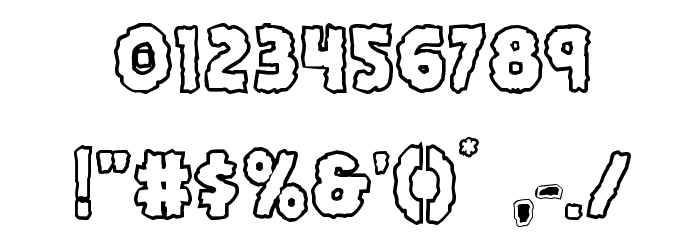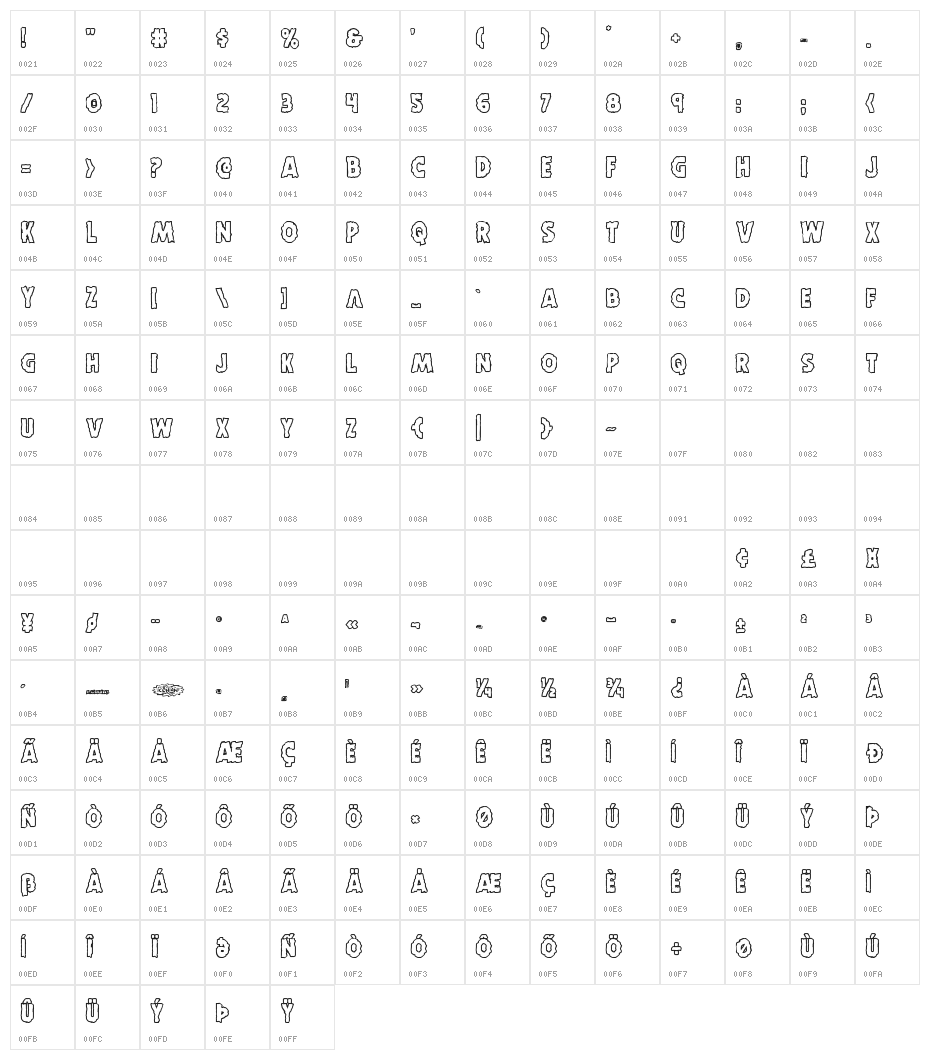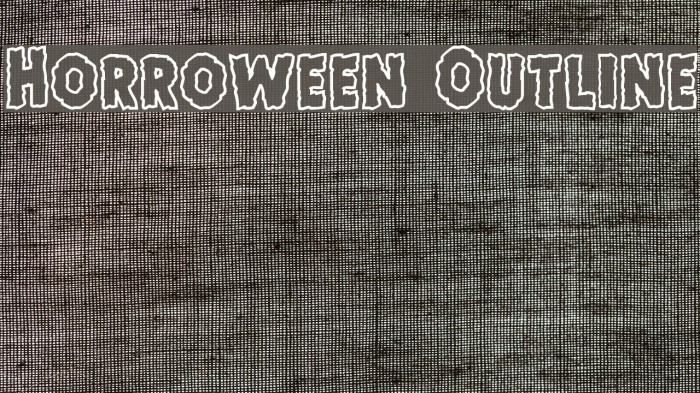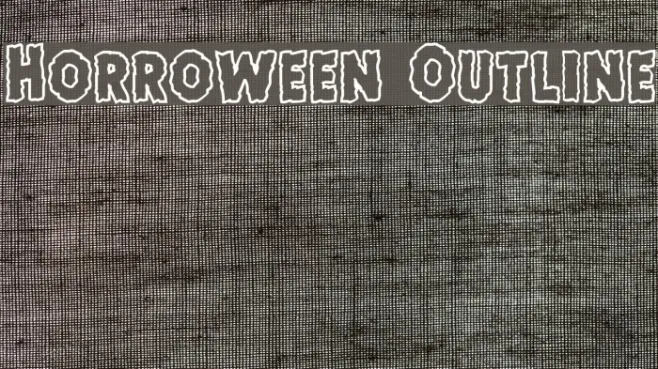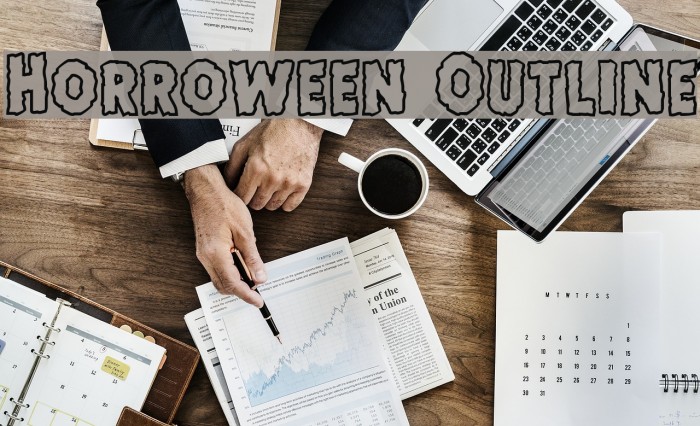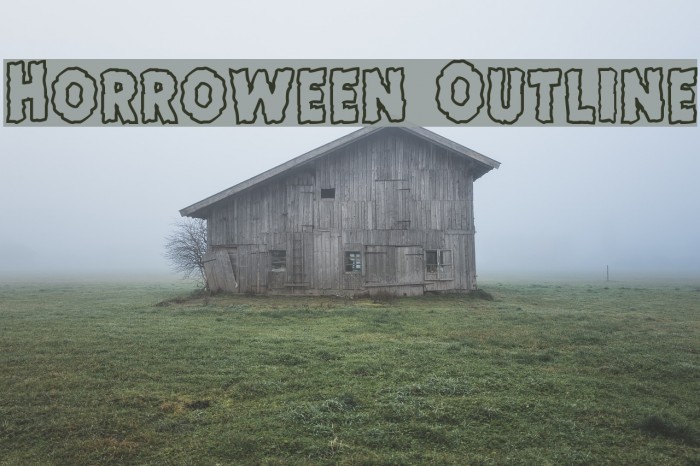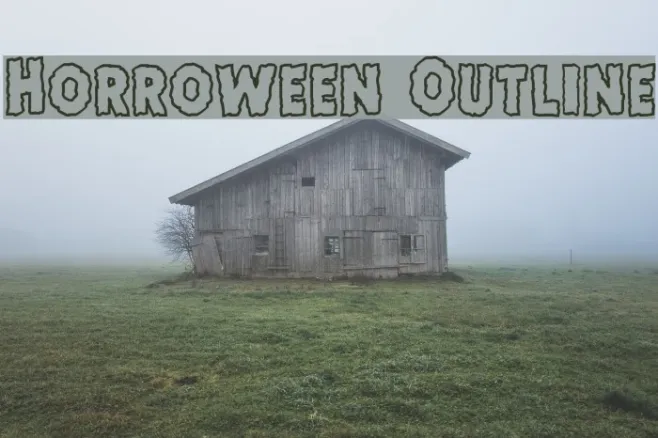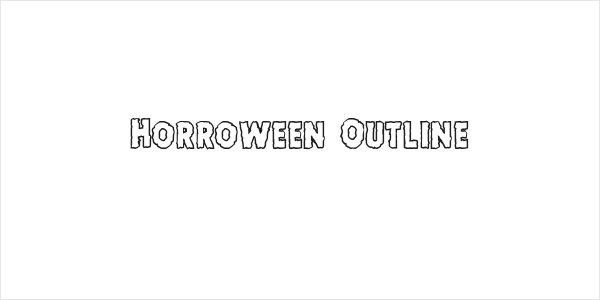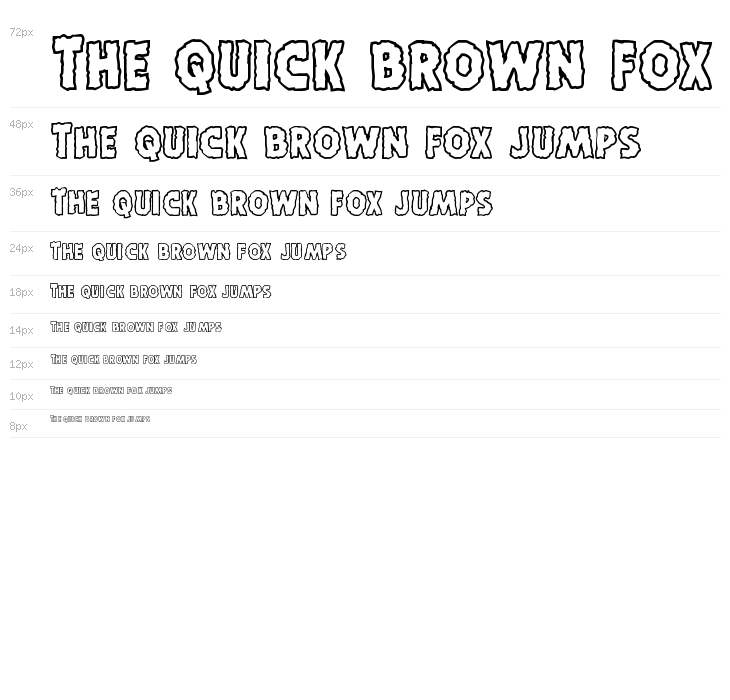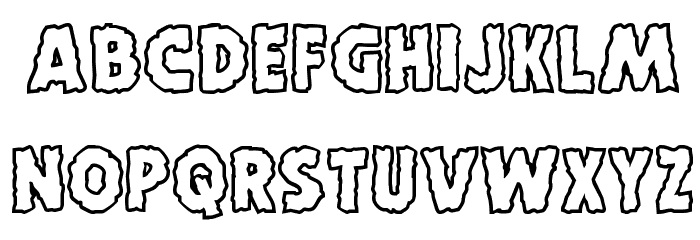
Horroween Outline Font
Horroween Outline Description
This font features a playful and spooky outline style, perfect for Halloween-themed projects. The characters are bold and have a jagged, irregular edge that gives them a hand-drawn appearance. The uppercase and lowercase letters maintain a consistent style, with each character exhibiting a unique, slightly distorted shape. The numbers and special characters follow the same design, ensuring a cohesive look across all text elements. This font is ideal for creating eye-catching headlines or decorative text that needs to convey a sense of fun and eeriness.
| Use Case | Headlines, Decorative text |
| Proposed Projects | Ideal for Halloween invitations, party flyers, themed posters, and decorative signage. |